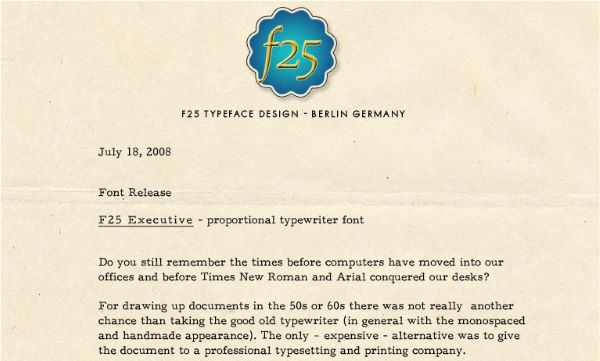
F25 Executive Font
F25 Executive by Volker Busse (F25 Digital Typeface Design) is a free typewriter font with a crisp, corporate-era authority — its clean, well-spaced letterforms evoking the executive correspondence of mid-century business culture where a quality typewriter font was the measure of professional credibility. With 245 glyphs and over 333,000 downloads, it delivers reliable typographic presence for retro corporate branding, editorial design, vintage document aesthetics, and mid-century modern layouts. Released 100% free including commercial use.